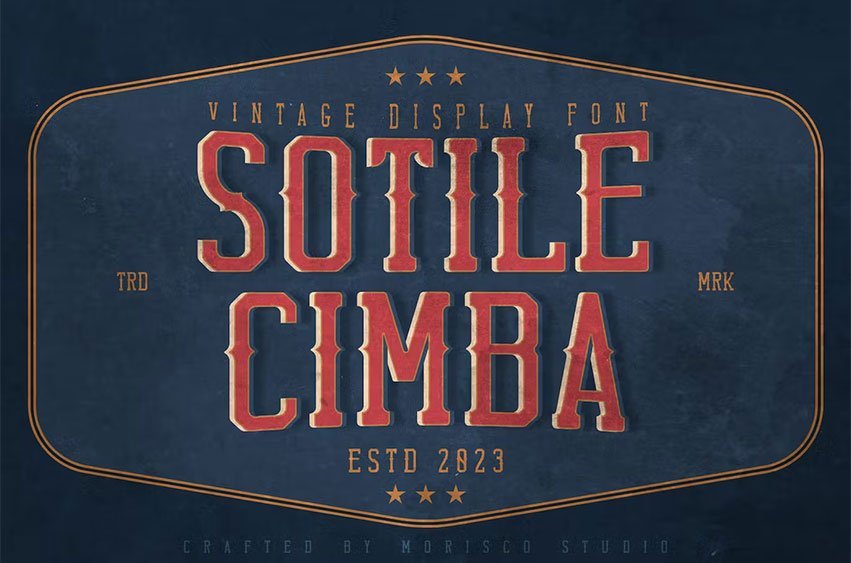
Sotile Cimba Font is a font which is inspired by vintage lettering sign. This font, well-suited for headline and any project, like branding, print template, logo and more.